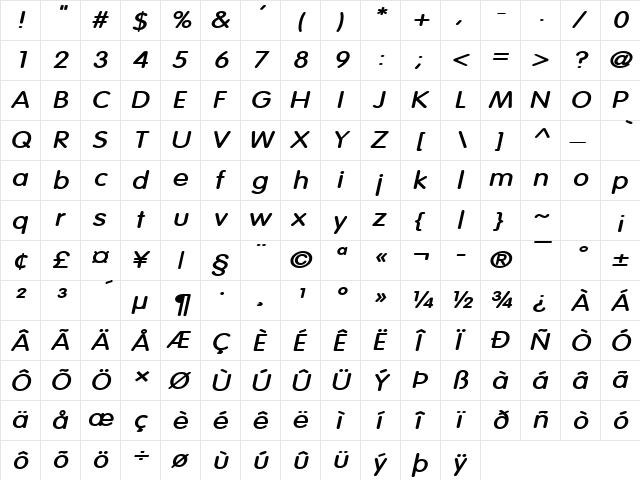
Vogel Wide BoldItalic
Design Context for Vogel Wide Typeface
Vogel Wide takes a measured approach to typography — its balanced proportions and neutral character make it a reliable workhorse for both digital and print work. The dynamic lean of this cut emphasises speed and emphasis in any layout. Its bold stroke weight gives it real presence on the page.
Pro Tip: Use Vogel Wide for emphasis, pull quotes, and subheadings where its slanted energy can add rhythm to the layout.